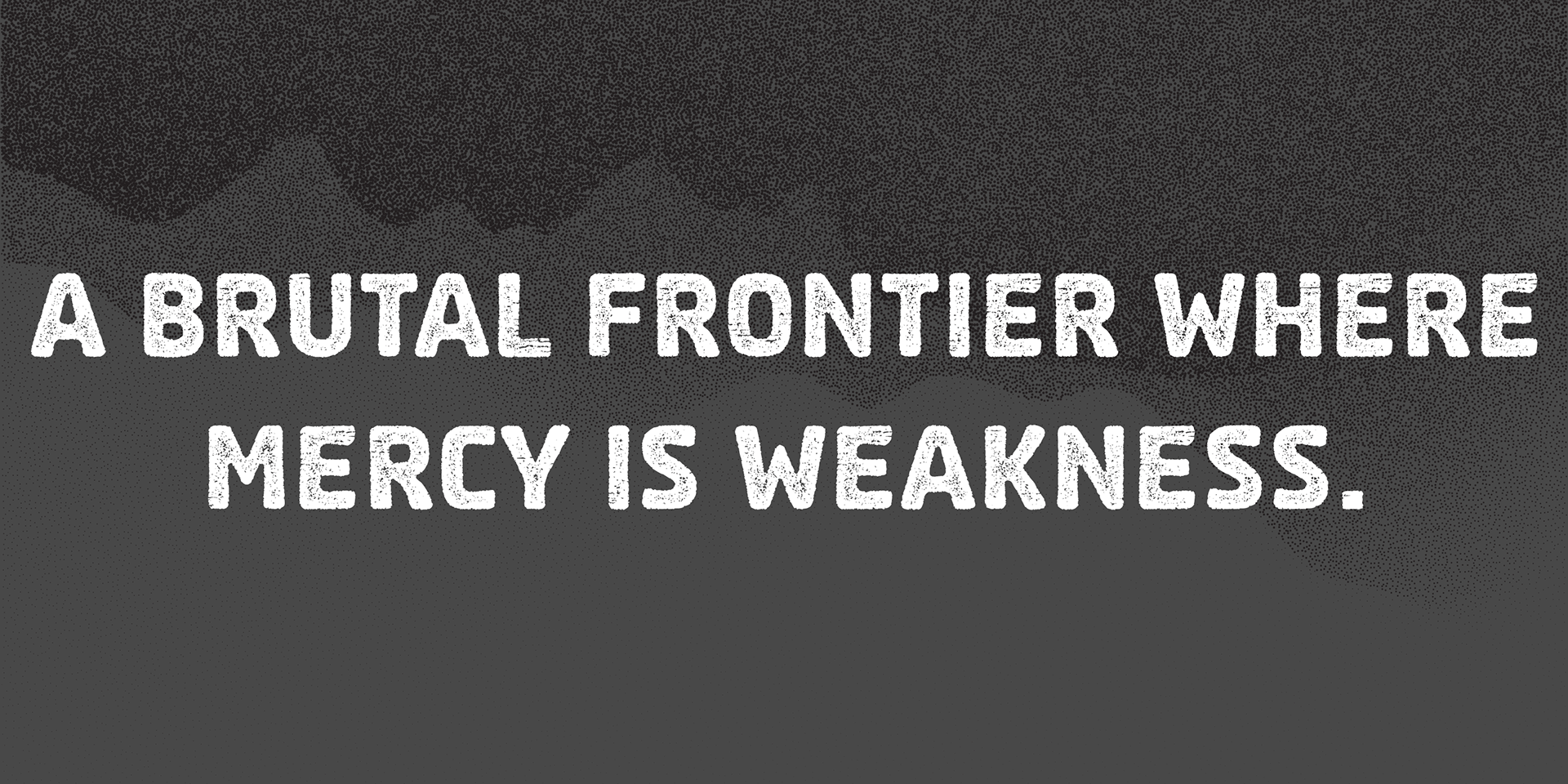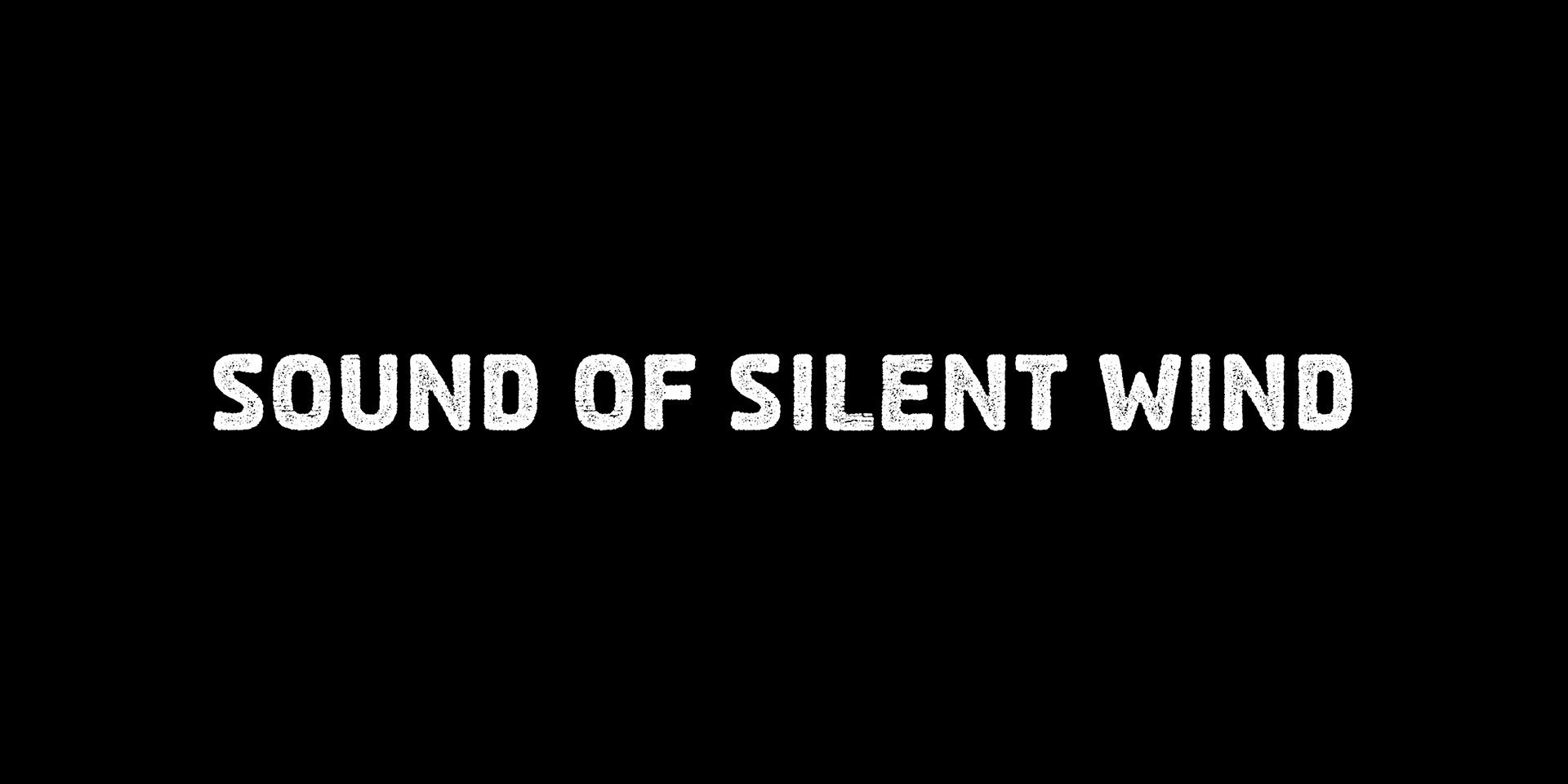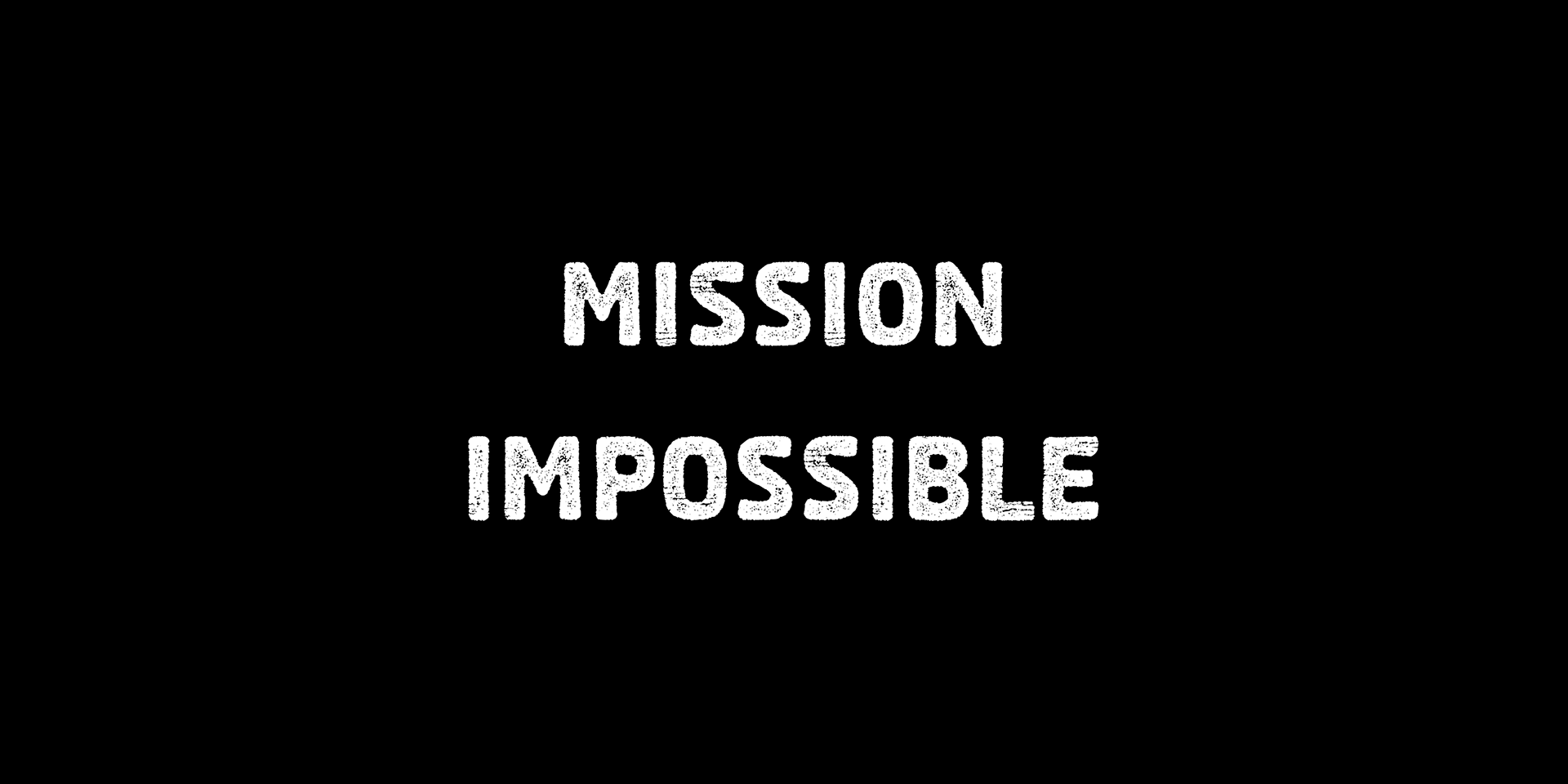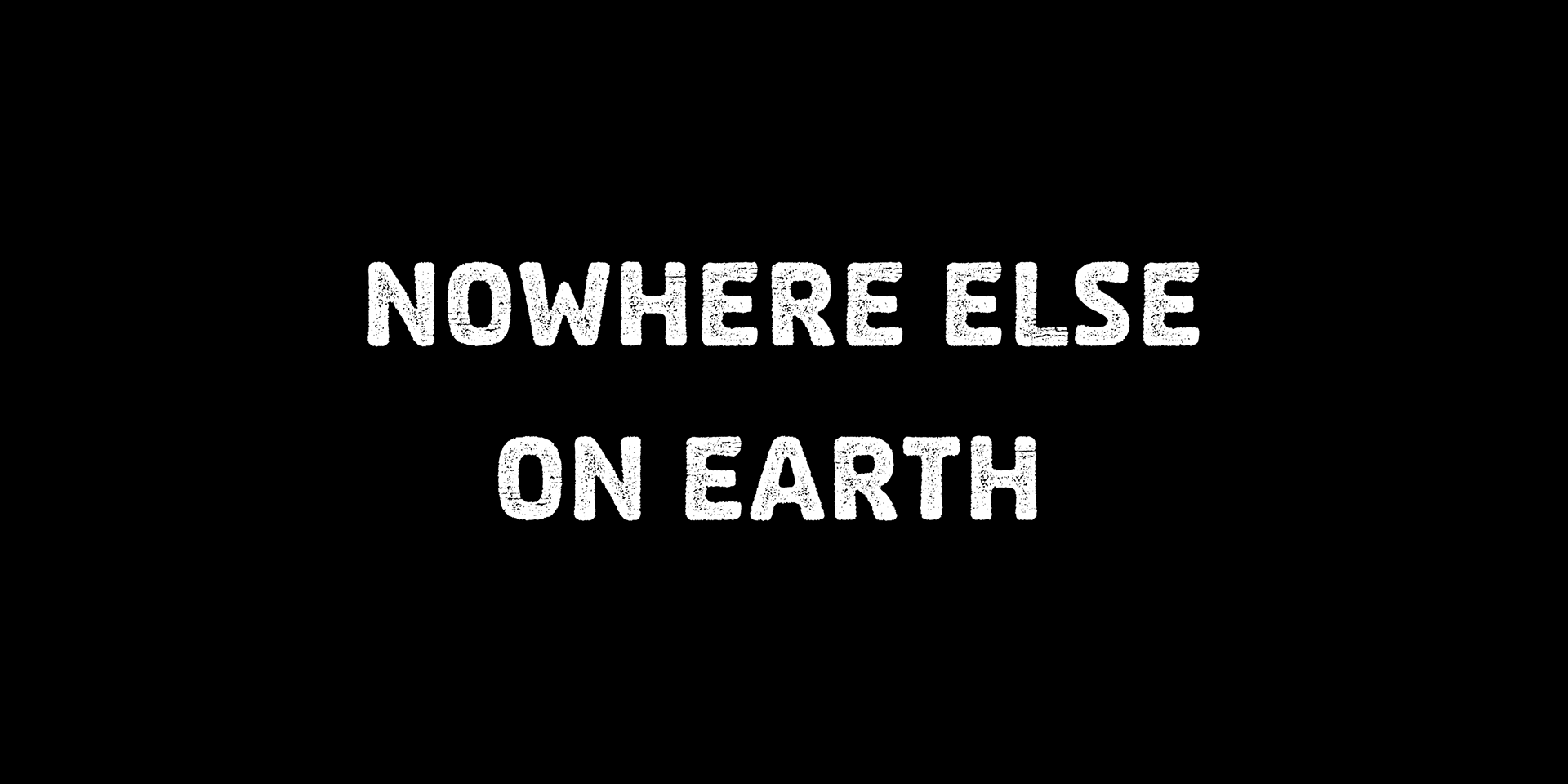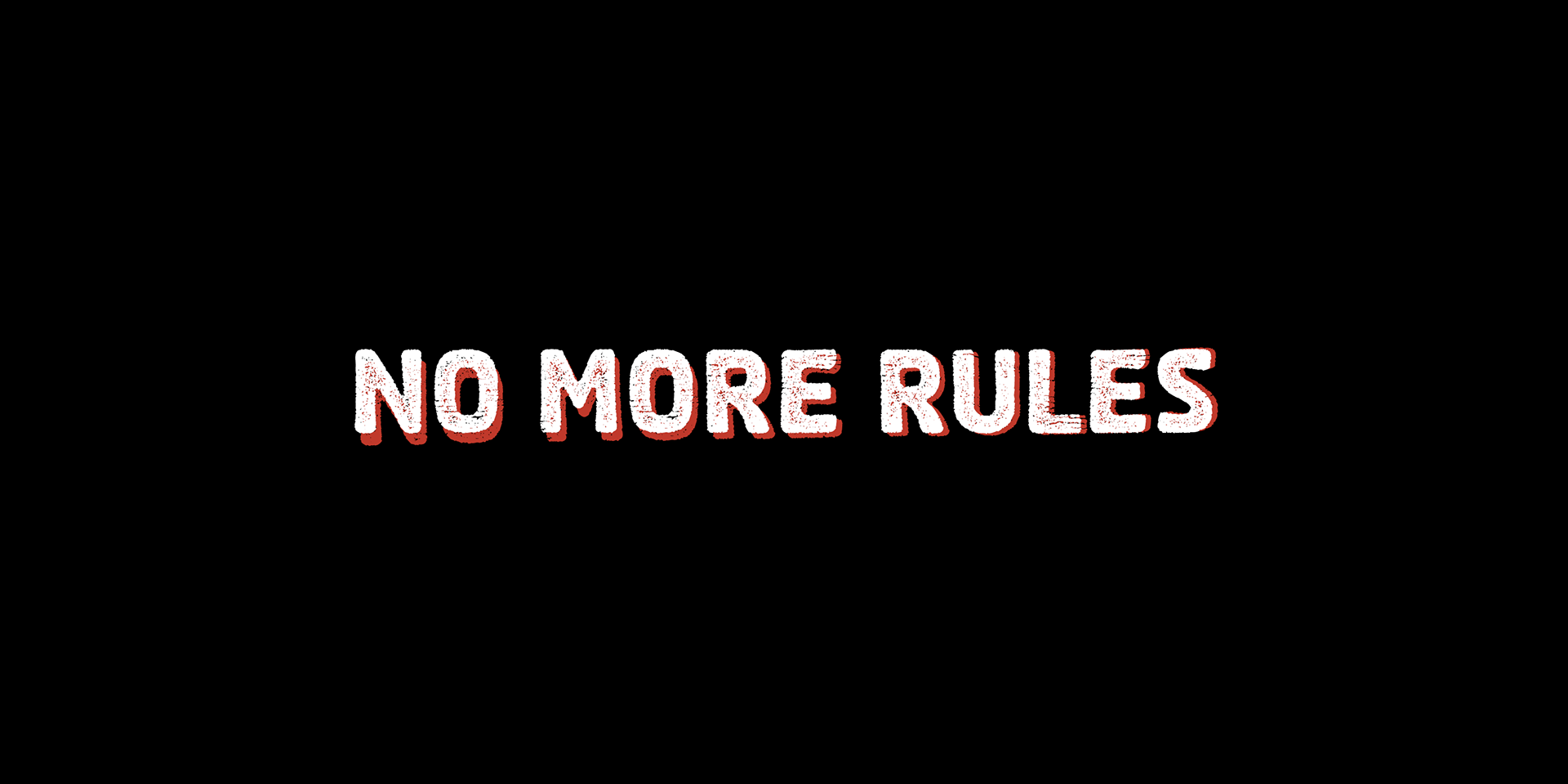
Elpiedra
Nothing ventured, nothing gained.
This smokey, rough-textured grunge font carries a raw, rebellious spirit—perfect for designs that need a bold, worn, and fearless aesthetic.